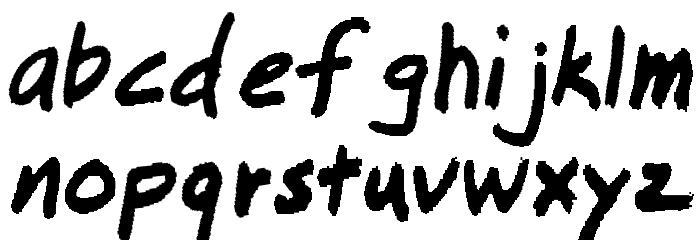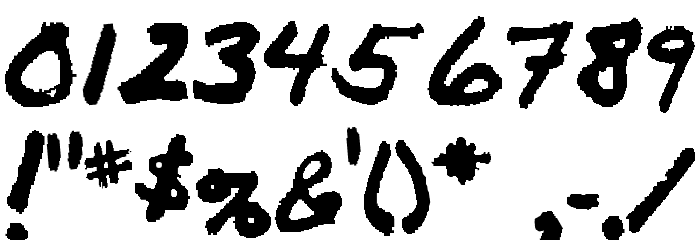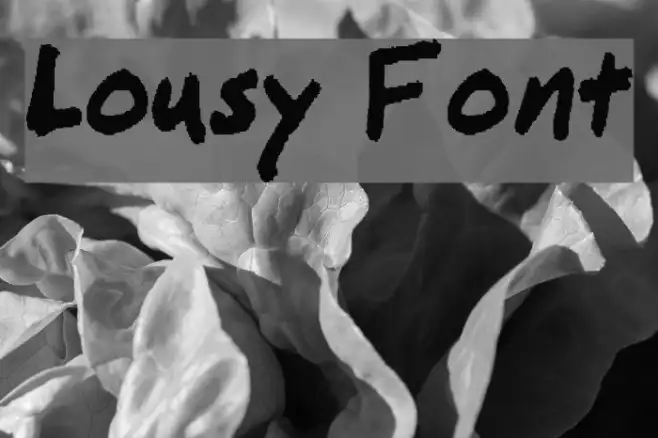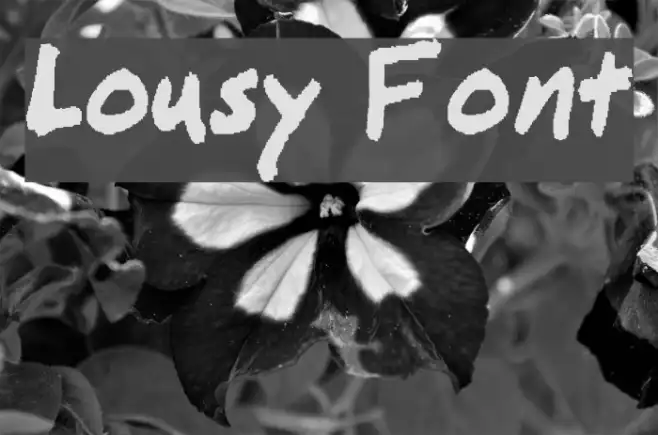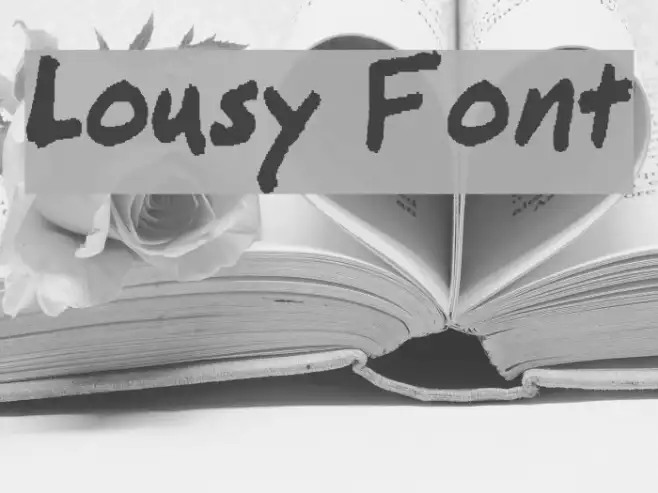
Lousy Font
This font features a bold, handwritten style with a playful and casual appearance. The letters are slightly irregular, giving it a dynamic and energetic feel. The uppercase and lowercase letters maintain a consistent style, with rounded edges and a slight slant, enhancing its informal look. Numbers and special characters follow the same aesthetic, making it versatile for various uses. The strokes are thick and consistent, providing a strong visual impact.
A bold, playful handwritten font with a casual and dynamic style.
- Proposed Projects: Ideal for projects that require a personal touch, such as greeting cards, invitations, children's books, and creative branding.
- Category: Handwritten
- Overall Style: Casual
- Use Case: Headlines, Logos, Informal Text